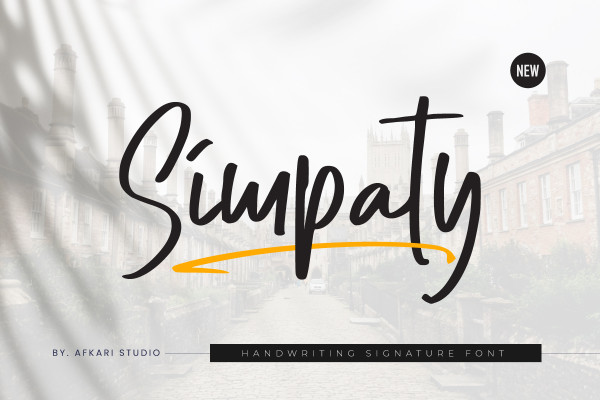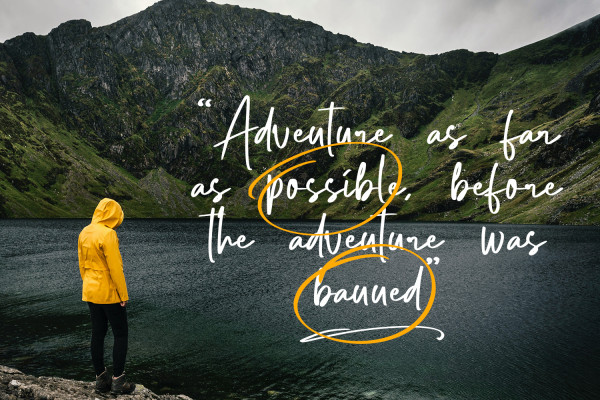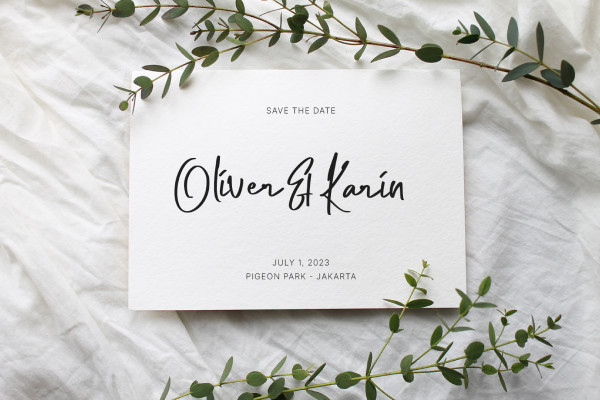
Simpaty Handwriting Font
Simpaty Handwriting Signature Font is a stylish and elegant typeface designed to mimic natural handwriting. The font features smooth and flowing lines, giving it an authentic and personal touch.
Simpaty Handwriting Signature Font is a versatile font that can be used for various design purposes, such as branding projects, wedding invitations, romantic themes, studio branding, logos, social media posts, clothing designs, posters, cafe or restaurant signage, and more.
The font includes both uppercase and lowercase letters, numbers, and punctuation marks, providing a complete set of characters for your design needs. Additionally, it offers standard and special ligatures, allowing for beautiful and seamless connections between letters.
In summary, Simpaty Handwriting Signature Font is a versatile and user-friendly typeface that adds a personal and sophisticated touch to various design projects. Its natural handwriting style and comprehensive character set make it suitable for a wide range of applications in both print and digital mediums.
Simpaty – Handwriting Signature Font